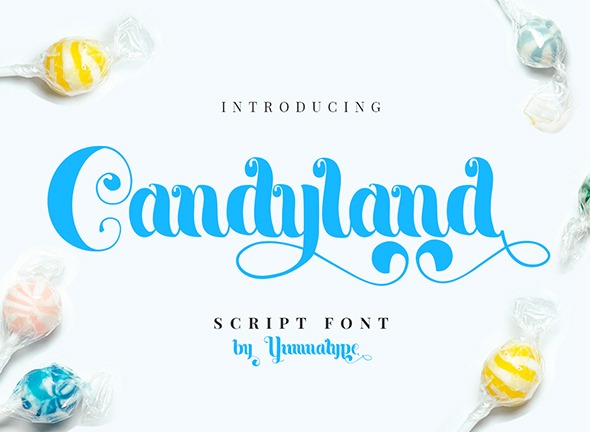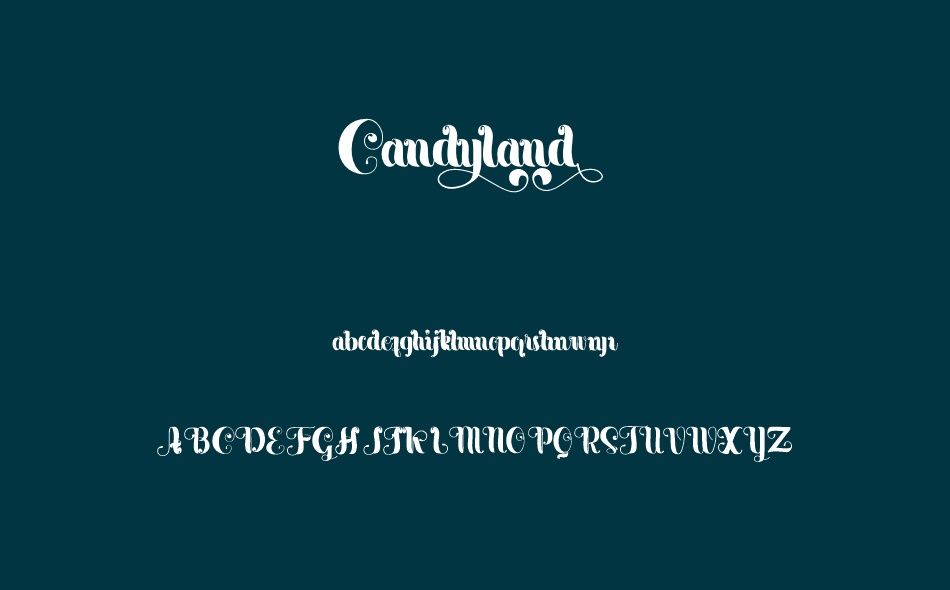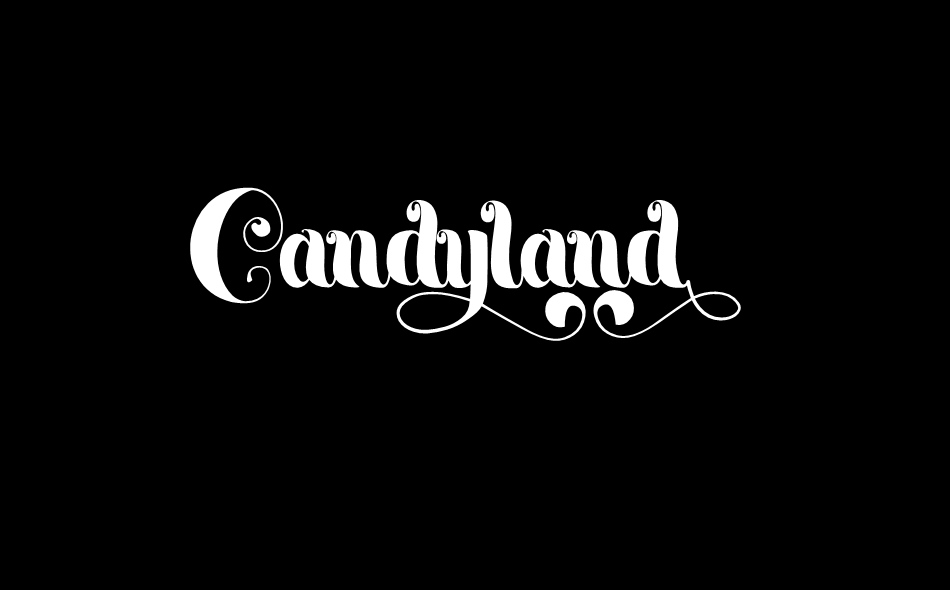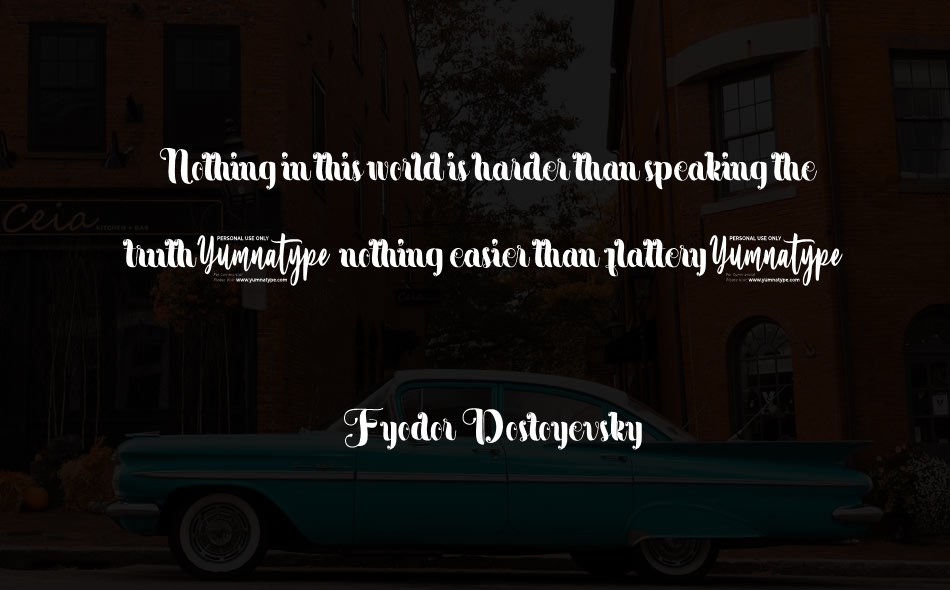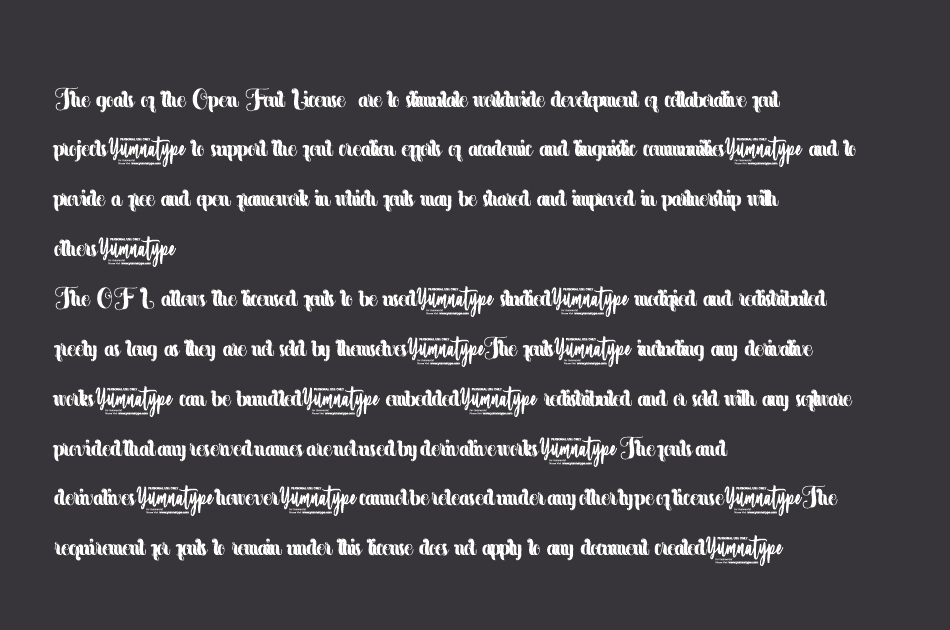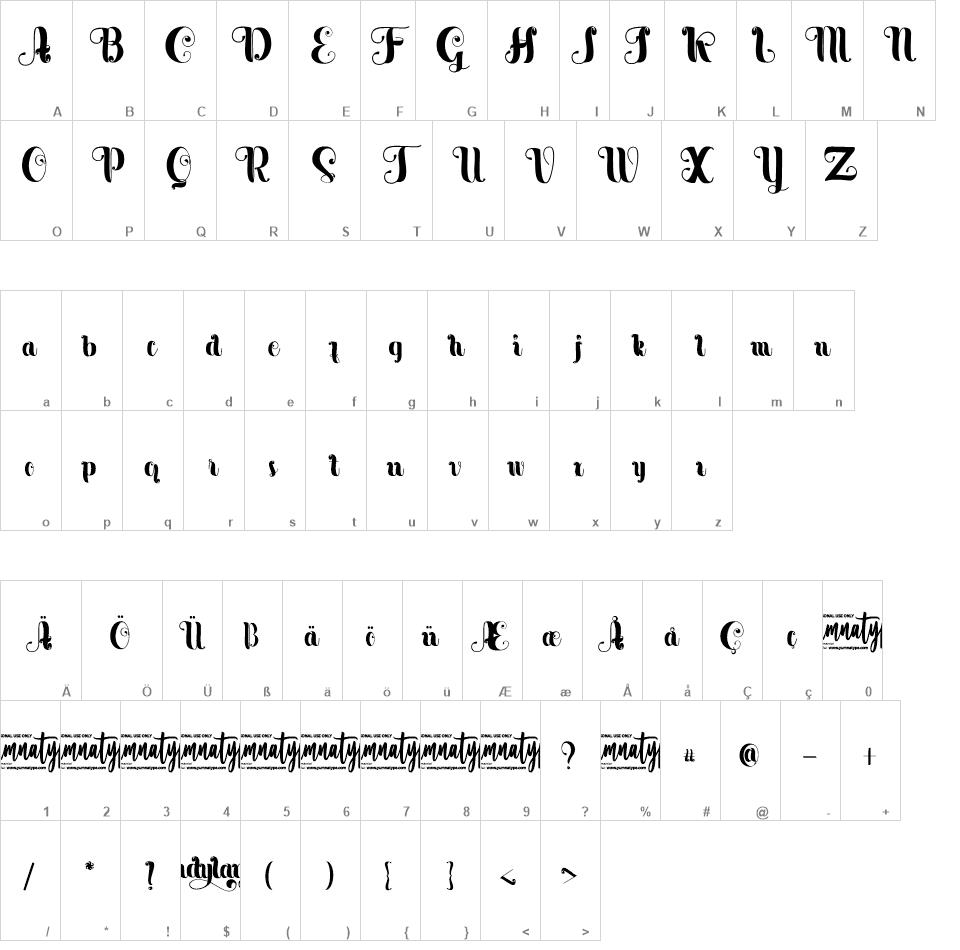
Candyland font
Introducing Candyland- A Sweet Handwritten Font
Candyland is designed and carefully handcrafted elegantly and gracefully to embrace your project. This font will never go wrong for your audience, clients, guests or anyone around you! Use it for headings, logos, business cards, printed quotes, invitations of all sorts, cards, packaging, and your website or social media branding.